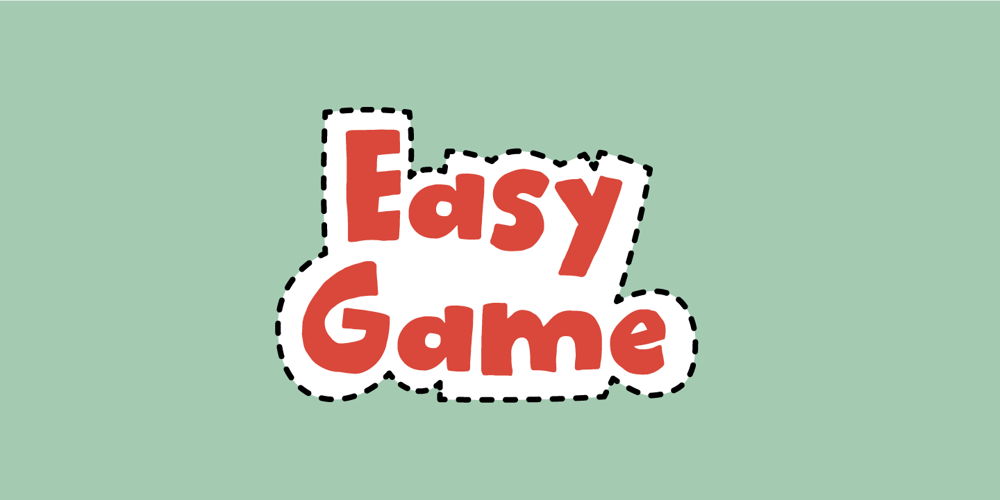
Easy Game Font Family was designed by Jakob Fischer and published by PizzaDude.dk. Easy Game contains 2 styles and family package options. Easy Game is my laid back, easy to read, fun to watch comic and all-purpose font!